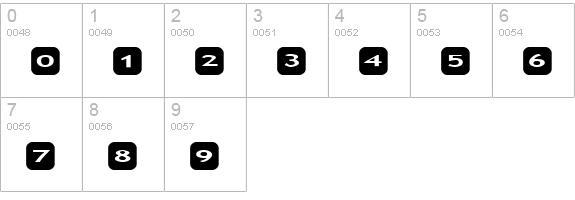
Introducing AlphaShapes rounded corners font, a modern and sleek typeface that adds a touch of sophistication to any design project. The rounded corners of each letter give this font a soft and welcoming look, making it perfect for a variety of applications such as branding, logos, packaging, and more. One of the best features of AlphaShapes rounded corners font is that it is completely free to download at FontsMarket.com. This means you can easily access this stylish font and elevate your designs without any cost. Whether you're a seasoned designer or just starting out, AlphaShapes rounded corners font is a versatile and eye-catching choice that will surely make your projects stand out. Download it today and add a touch of elegance to your creations!